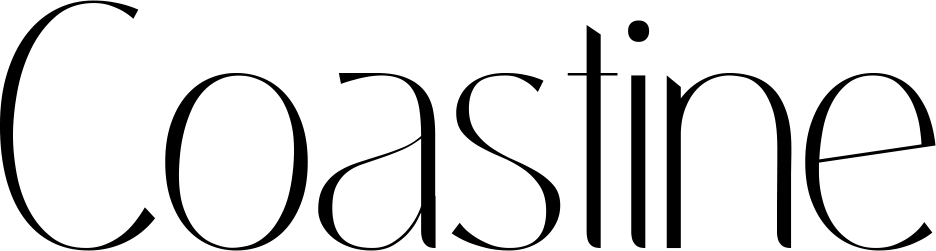
Coastine Font
Ignite the power to make out in designing many websites, apps, branding, and even main text through affecting the modernity and friendly effects of this san serif font. The thin and clean design of this Coastine font based on the latest creations can bring successful results to your typography and go over others gorgeously.